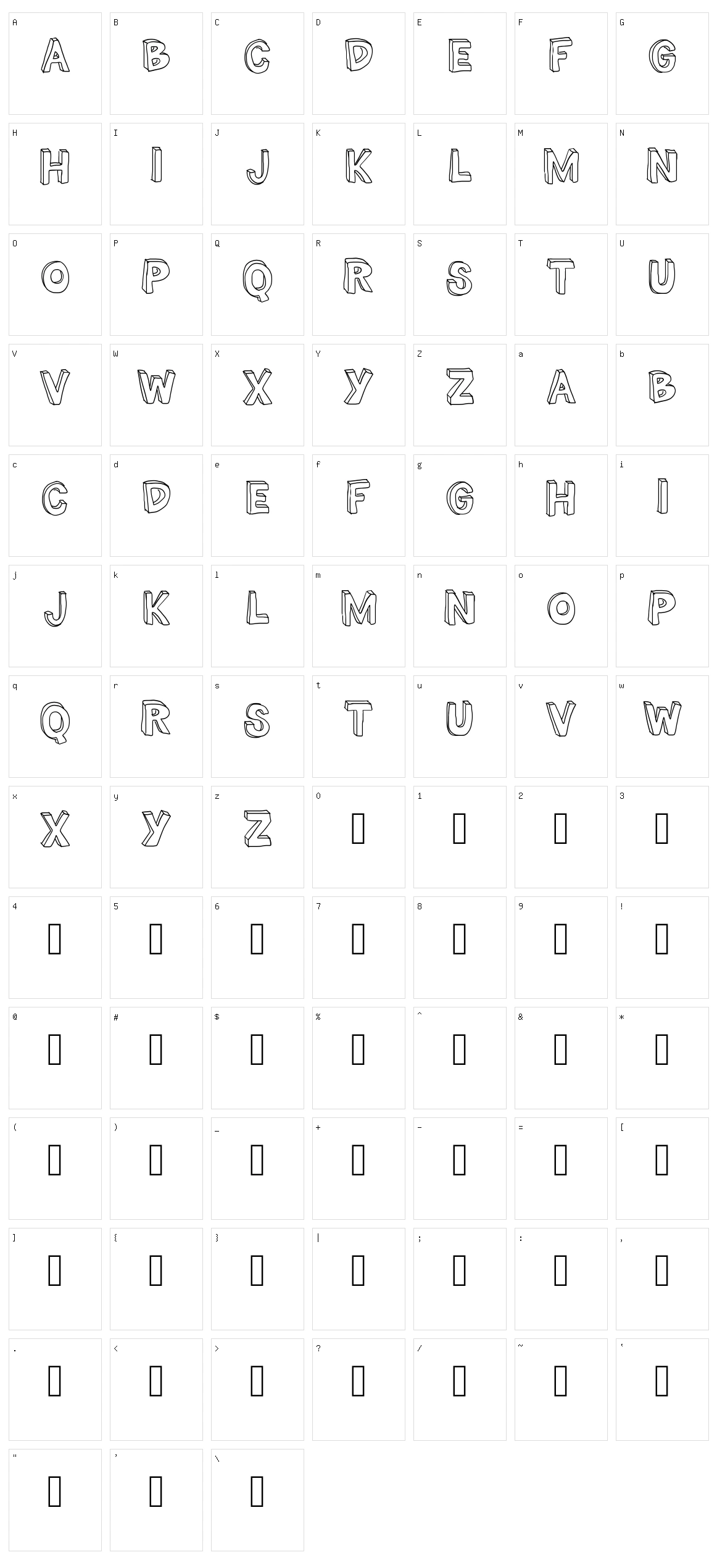
The free font The Million Mile Man is carefully designed by Geronimo Font Studios, showcasing a thoughtful balance of creativity and usability and falls under the Cartoon font style. When you download the ZIP file, it contains only 44.77 KB of font files, making it lightweight and quick to download. Please review the license details below to understand permitted usage and distribution rights. If license information is not available, we recommend using this font for personal projects only or contacting the author directly for commercial usage permissions.